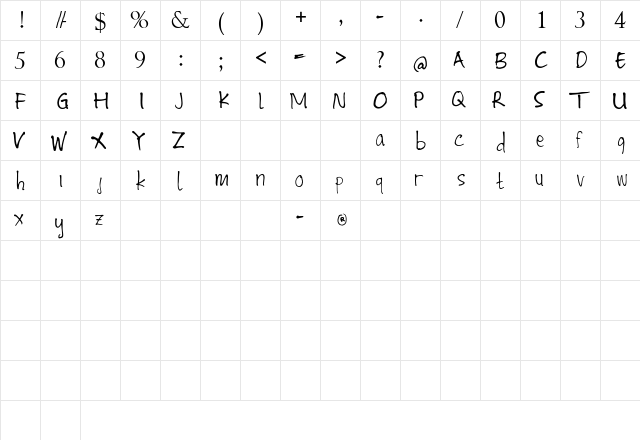
Distance Avero Regular
Design Context for Distance Avero Typeface
Distance Avero is a composed and adaptable typeface that performs quietly and consistently across a wide range of design contexts.